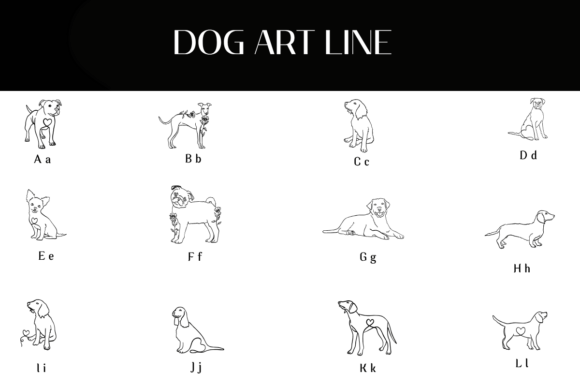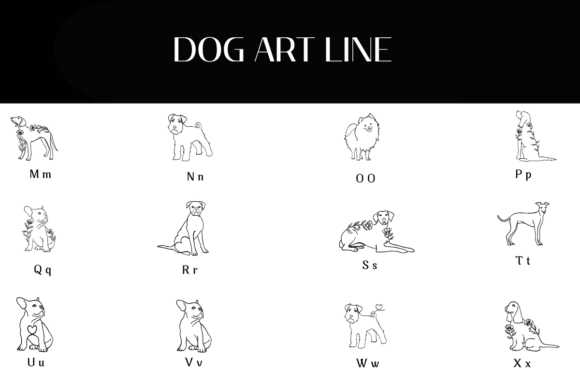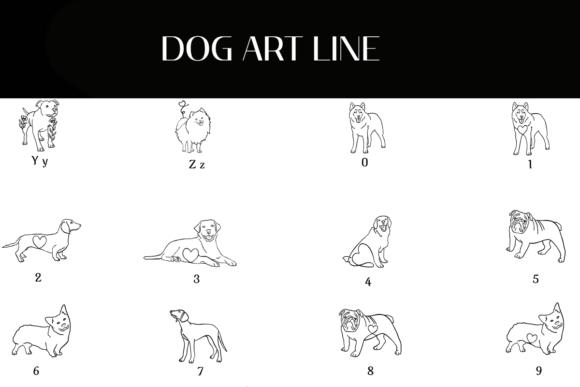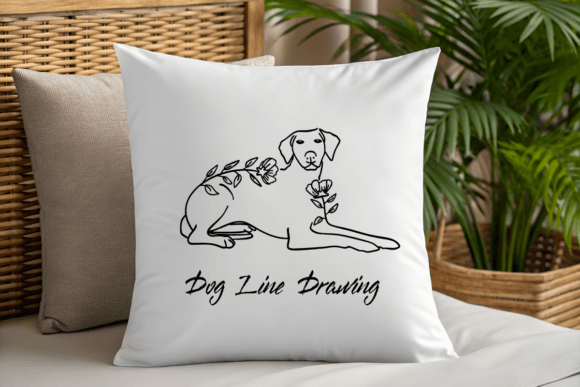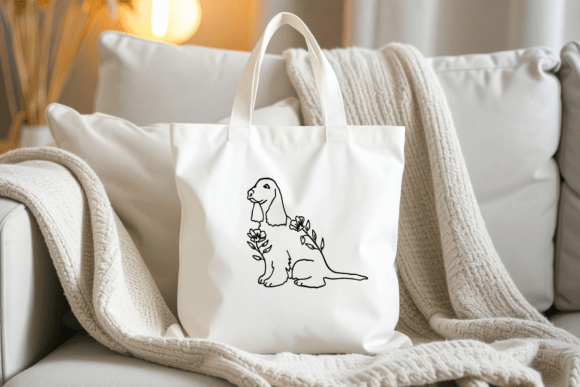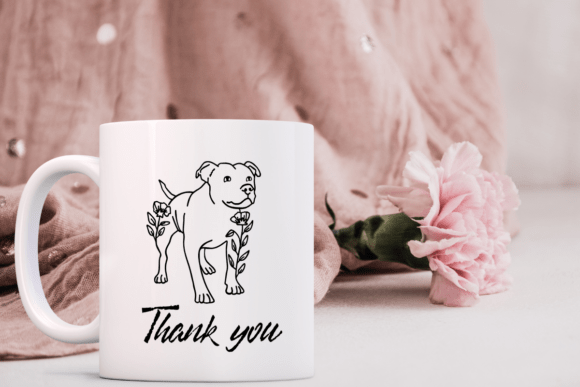
Unleash the Cuteness: Introducing Dog Art Line Font
Are you a dog lover, designer, or crafter looking for a unique and creative way to express your passion for man’s best friend? Look no further than the Dog Art Line Font, a heartwarming dingbats font that features hand-drawn, single-line dog illustrations. This charming font is perfect for pet-related crafts, logos, apparel, or custom gifts, and is sure to delight animal lovers of all ages.
What is Dog Art Line Font?
Dog Art Line is a carefully crafted font that showcases a variety of dog breeds and poses, each one lovingly illustrated with a single line. The font features a range of glyphs, from playful puppies to majestic hounds, and even includes some adorable decorations like hearts and floral elements. Whether you’re designing a logo for a dog grooming business, creating custom stationery for a pet shelter, or simply want to add a personal touch to your craft projects, this font has everything you need.
Key Features of Dog Art Line Font
- Hand-drawn illustrations: Each glyph in the Dog Art Line Font is meticulously hand-drawn, giving the font a unique and artistic feel.
- Single-line design: The single-line design of the font makes it easy to use and versatile, allowing you to create a wide range of designs.
- Variety of dog breeds and poses: The font features a range of dog breeds and poses, from playful to majestic, ensuring that you’ll find the perfect illustration for your project.
- Decorative elements: The font includes decorative elements like hearts and floral patterns, adding an extra touch of whimsy and charm to your designs.
Who is Dog Art Line Font for?
Dog Art Line Font is perfect for a wide range of designers, crafters, and businesses, including:
- Animal lovers: If you’re a dog lover or enthusiast, this font is a must-have for creating unique and personalized designs.
- Dog groomers and pet shelters: The font is ideal for businesses that work with dogs, providing a creative and professional way to brand your business.
- Stationery designers: Add a touch of whimsy and charm to your stationery designs with the Dog Art Line Font.
- Crafters and scrapbookers: The font is perfect for crafters and scrapbookers who want to add a personal touch to their projects.
How to Use Dog Art Line Font
Using the Dog Art Line Font is easy and fun! Simply type and let your design go fetch some cuteness! Here are a few ideas to get you started:
- Create custom pet-themed crafts: Use the font to create personalized pet-themed crafts, such as customized pet tags, collars, or leashes.
- Design logos and branding: Use the font to create unique and professional logos and branding for your dog-related business.
- Add a personal touch to stationery: Add a touch of whimsy and charm to your stationery designs with the Dog Art Line Font.
- Create custom apparel: Use the font to create customized pet-themed apparel, such as t-shirts, mugs, or tote bags.
The Dog Art Line Font is a heartwarming and creative font that’s perfect for designers, crafters, and businesses who love dogs. With its hand-drawn illustrations, single-line design, and variety of dog breeds and poses, this font is sure to delight animal lovers of all ages. So why wait? Unleash the cuteness and get creative with the Dog Art Line Font today!